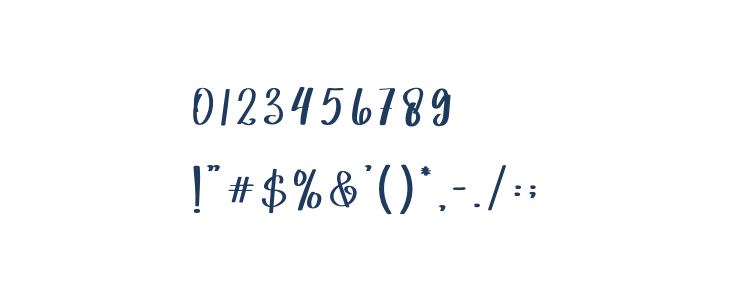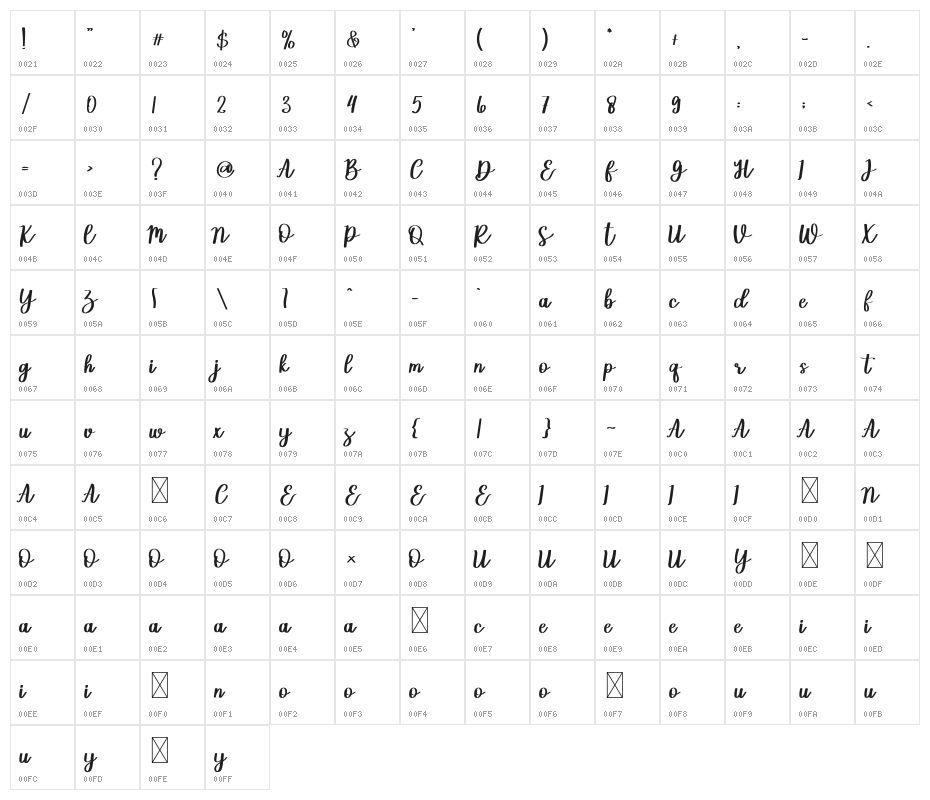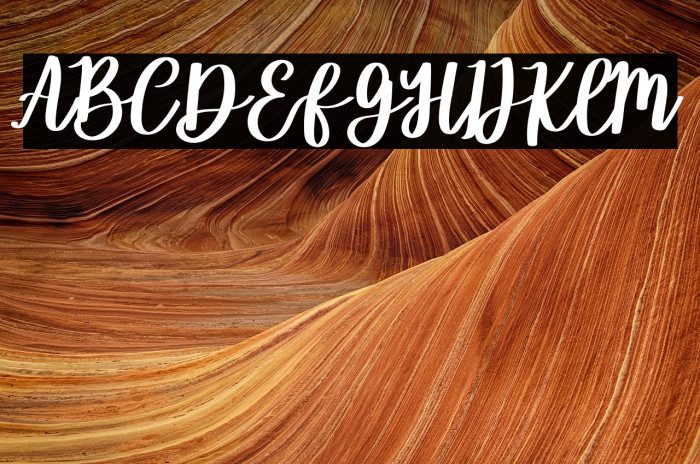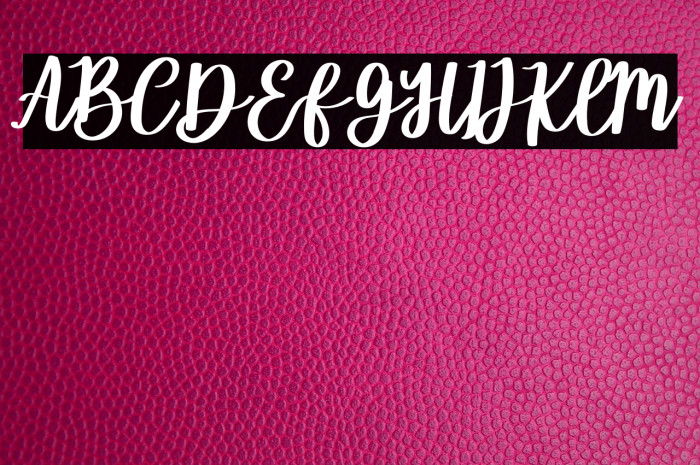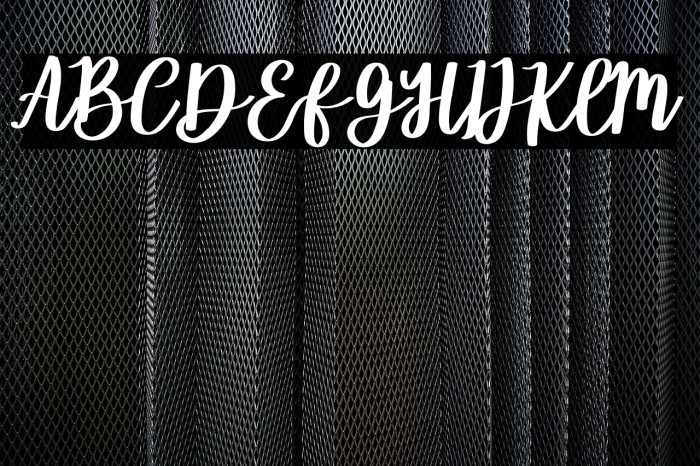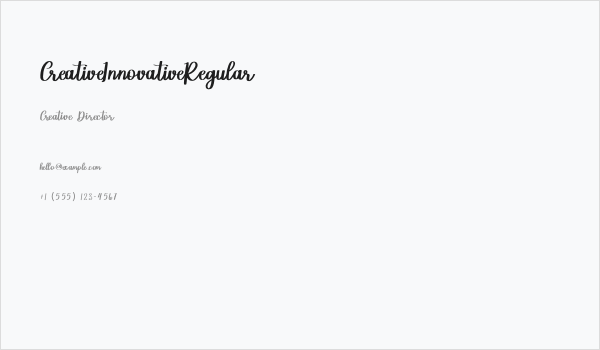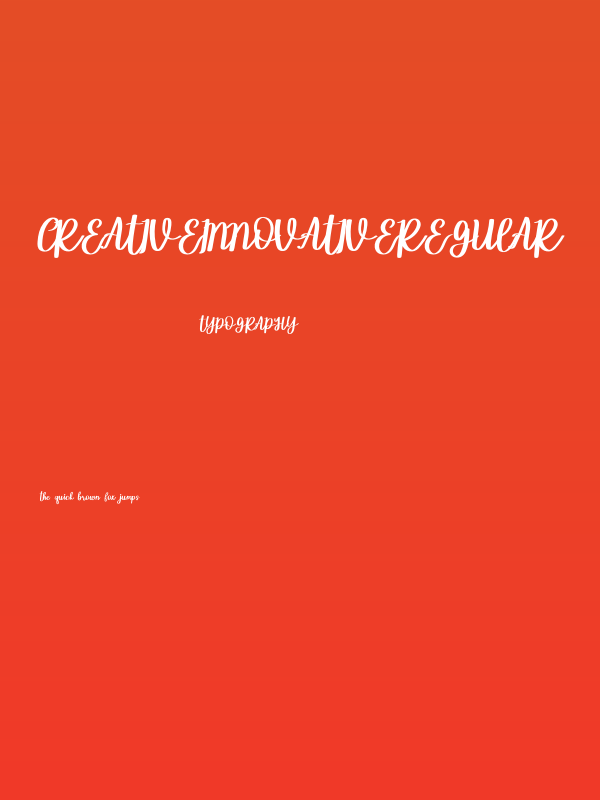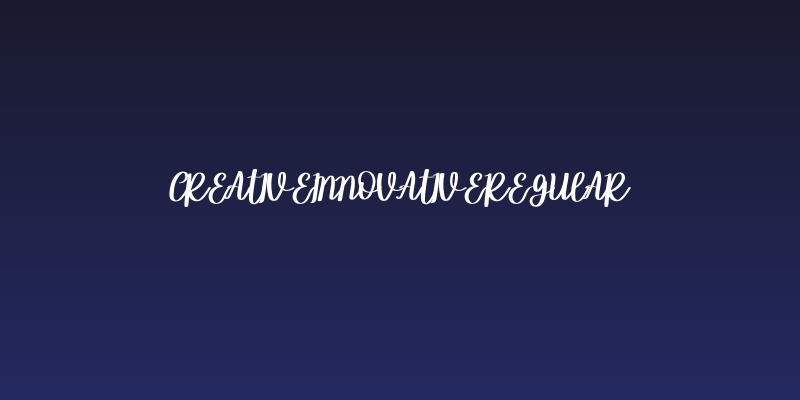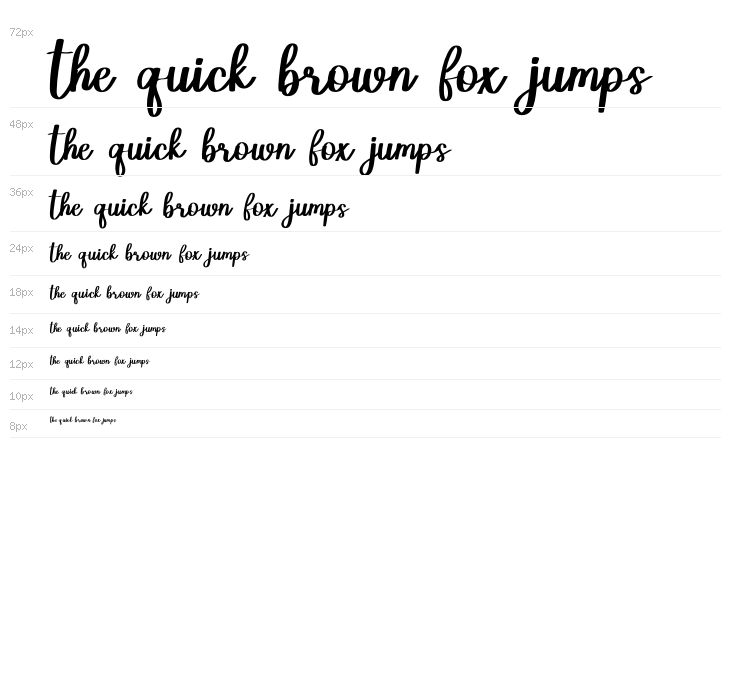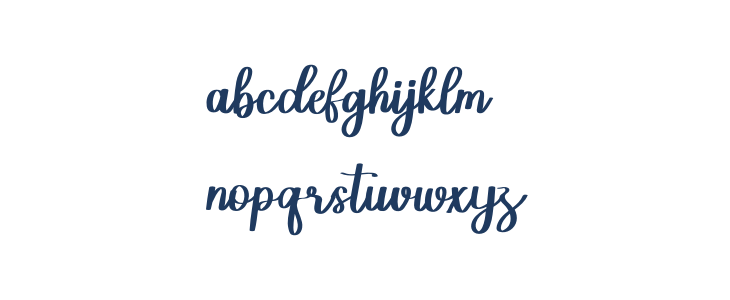
CreativeInnovativeRegular Font
CreativeInnovativeRegular Description
This font exhibits a dynamic and flowing script style, characterized by its elegant and cursive letterforms. The uppercase letters are bold and sweeping, with distinctive loops and flourishes that add a touch of sophistication. The lowercase letters maintain a consistent flow, enhancing readability while preserving the artistic flair. Numbers and special characters are designed to complement the overall aesthetic, featuring similar curves and strokes. This font is perfect for projects that require a personal and creative touch, such as invitations, branding, and decorative headings.
| Use Case | Headlines, Logos, Invitations |
| Proposed Projects | Ideal for wedding invitations, branding, logos, and decorative headings. |